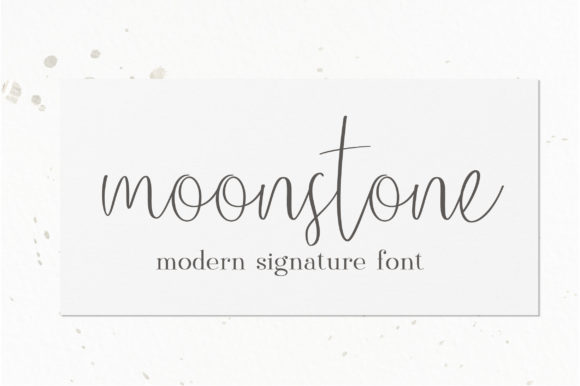
Adorn your visual creations with a celestial touch using Moonstone Font, a mesmerizing script font that emulates the elegance of the moon's radiant glow. Designed by the talented hand of Sunday Nomad, Moonstone boasts a clean, slender, and smooth aesthetic that effortlessly elevates any design it adorns.
Moonstone Font: Capture the Enchantment of Lunar Radiance
With its ethereal charm, Moonstone Font casts a spellbinding aura that captivates the senses. Its delicate strokes flow like a gentle breeze, creating a visual symphony of grace and sophistication. Embrace the magic of Moonstone's enchanting curves and let your designs shine with a touch of celestial allure.
The Perfect Font for a Signature of Distinction
Unleash the power of self-expression with Moonstone Font. Its elegant lines lend an air of sophistication to your signature, transforming it into a unique and captivating work of art. Whether you're a creative artist, a budding entrepreneur, or a passionate blogger, Moonstone Font adds a touch of distinction to your name, leaving a lasting impression wherever it appears.
Ignite Your Design Vision with Moonstone Font's Versatility
Moonstone Font is a versatile visionary's dream. Its graceful script complements a wide array of design styles, from whimsical invitations and elegant logos to captivating social media graphics and spellbinding presentations. Let Moonstone Font ignite your creativity and allow your designs to shimmer with a celestial spark.
Moonstone Font: Your Gateway to Timeless Beauty
Moonstone Font isn't just a font; it's a testament to timeless beauty. Its classic aesthetic transcends fleeting trends, ensuring your designs remain captivating for years to come. Invest in Moonstone Font today and embark on a journey of creative exploration, where your designs will shine with the enduring allure of the moon.